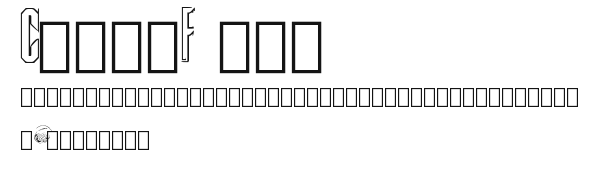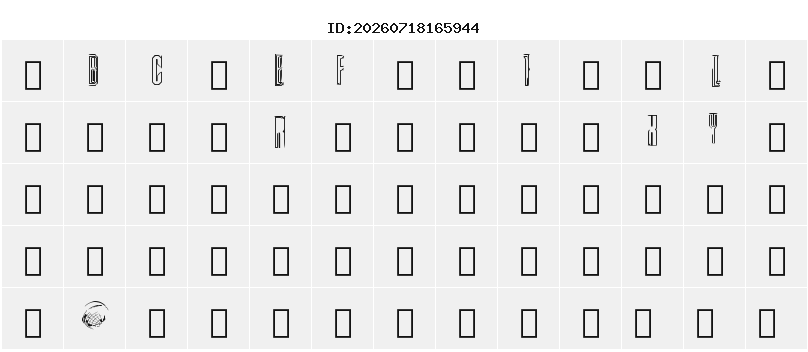
CyberFlix Preview
• Font Name: CyberFlix
• Font ID: CyberFlix-Regular-2014:12:14
• Full Font Name: CyberFlix Regular
• PostScript Name: CyberFlix-Regular
• Character Count: 10
About CyberFlix.ttf
CyberFlix.ttf is a modern, elegant sans-serif font designed for ultimate readability and visual harmony. Perfect for branding, headlines, web design, and print materials.